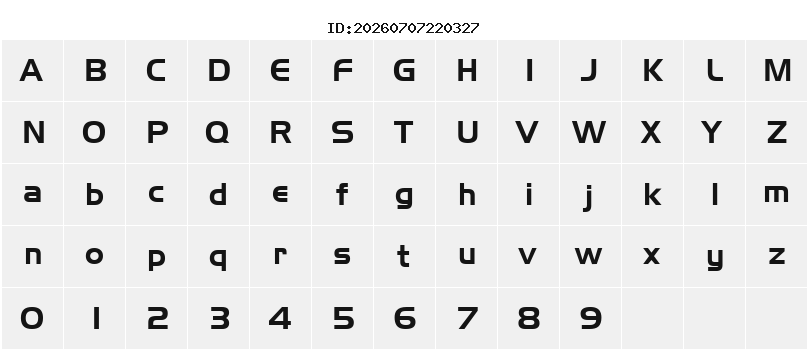
• Font Name: Data
• Full Font Name: Data Regular
• PostScript Name: Slicker
About Data.ttf
Data.ttf is a modern, elegant sans-serif font designed for ultimate readability and visual harmony. Perfect for branding, headlines, web design, and print materials.